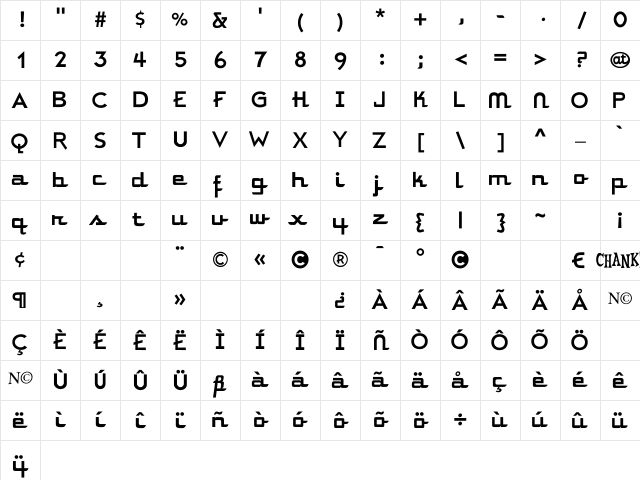
Parkway Motel
Style: Motel
Complete Parkway Motel glyph index. Displaying only characters natively supported by Parkway Motel font.
Design Context for Parkway
Parkway is a composed and adaptable typeface that performs quietly and consistently across a wide range of design contexts.